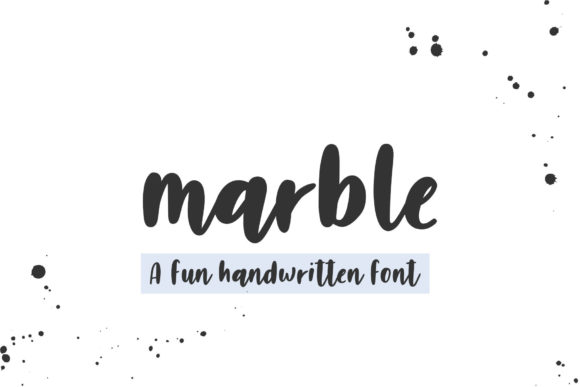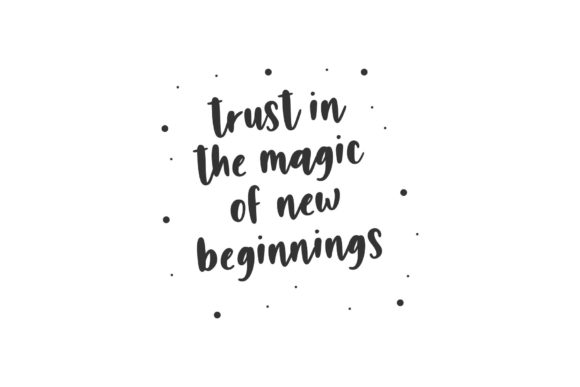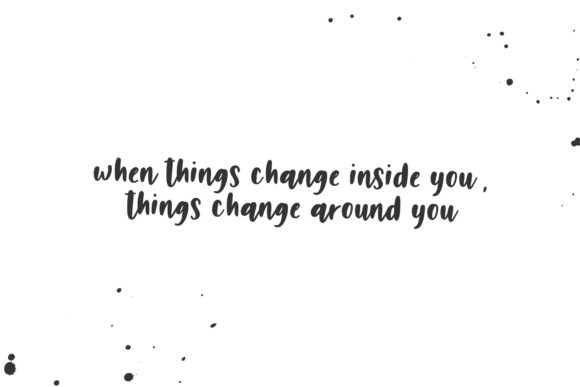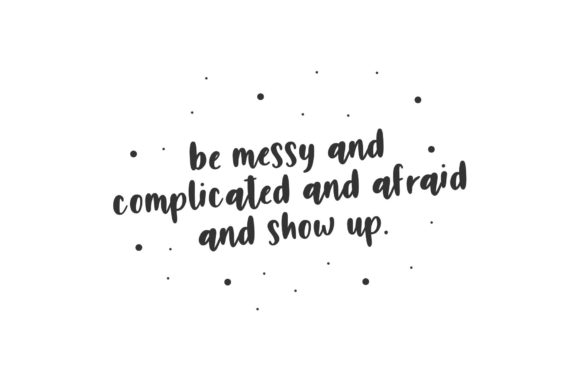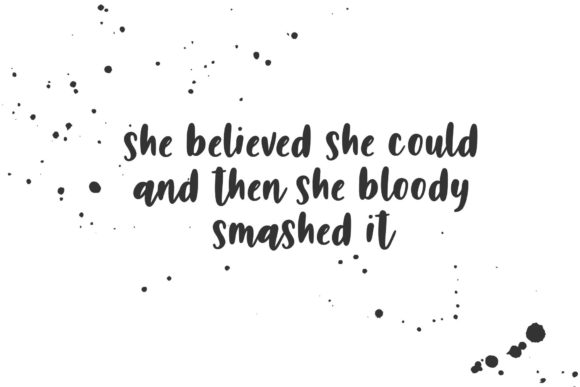
Marble Font
About Marble Font
Marble is a lovely and casual handwritten font. It is the best choice for creating eye catching logos, branding and quotes. Every letter has a unique and beautiful touch, which will make your design come alive!